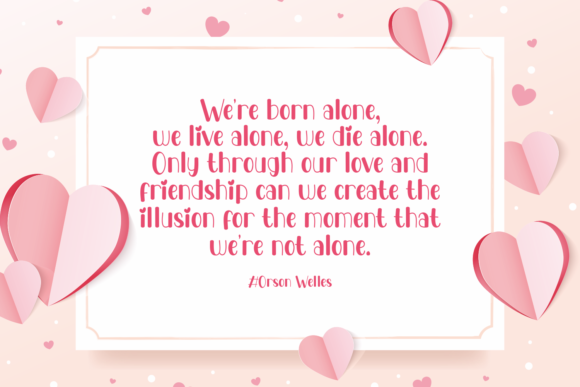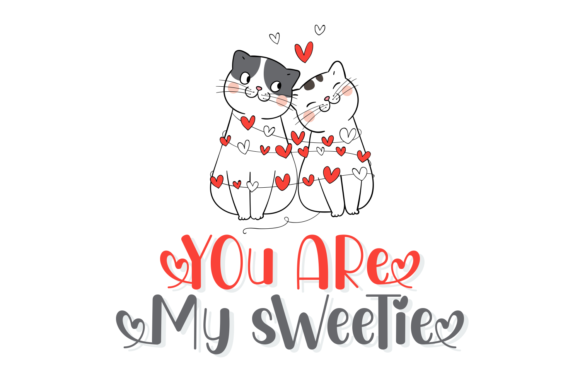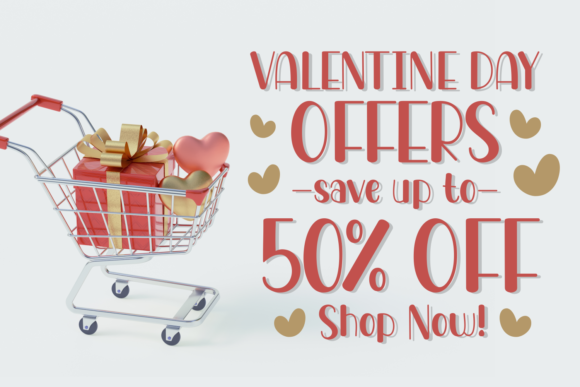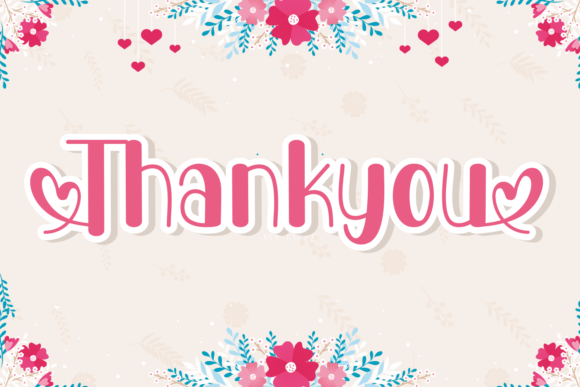
The Perfect Font for Whimsical Designs
Who hasn’t felt the rush of creativity when brainstorming ideas for a new project? The moment when the perfect concept clicks, and everything falls into place? For designers, this moment is often followed by the thrill of selecting the perfect font to bring their vision to life. And, let’s be honest, the right font can make all the difference between a good design and an amazing one.
Enter the enchanting Kafika Font, a delightful display font that adds a playful touch to any design. With its romantic and joyful vibe, Kafika Font is perfect for designers looking to infuse their creations with a sense of whimsy and fun. Whether you’re working on a wedding invitation, a children’s book, or a social media campaign, this font is sure to bring a smile to your face and delight your audience.
Kafika Font Key Features
- Unique Characteristics: The font features a unique blend of modern and traditional elements, making it perfect for projects that require a touch of elegance and sophistication.
Kafika Font Review
I recently had the chance to work with the Kafika Font, and I must say it’s a unique addition to any design project. ✨ One of the things that stands out about this font is its versatility – it’s perfect for both modern and vintage designs. The font’s bold lines and quirky details make it a great choice for titles, headings, and even short blocks of text.
Here are some of the things that I really like about the Kafika Font:
- ✨ Beautifully crafted bold and italic styles that add a lot of character to any design
- ✨ Suitable for a wide range of applications, from print to digital media
- ✨ Highly customizable, allowing you to adjust the font’s appearance to suit your specific needs
However, as with any font, there are some limitations to consider:
- ⚠️ The font may not be the best choice for large blocks of text, as the quirky details can make it difficult to read
- ⚠️ Some users may find the font’s bold lines to be overwhelming or too flashy
Overall, I think the Kafika Font is a great choice for designers looking to add some personality to their projects. With its unique style and versatility, it’s sure to make a statement. However, it’s worth considering the potential limitations before deciding to use it in your next design project.
Common Use Cases for Kafika Font
The Kafika font is versatile and can be used in a variety of design projects, including:
– Creative titles and headings
– Advertising and marketing materials
Tips for Getting the Most out of Kafika Font
Here are some tips for getting the most out of the Kafika font:
– Experiment with different font sizes and styles to create visual interest.
– Pair the Kafika font with other fonts to create a unique and eye-catching design.
– Use the Kafika font in conjunction with graphics and images to add depth and visual interest
Alternatives to Kafika Font for Designers
Oswald
Oswald is a sans-serif font that is great for creating clean and modern designs. It has a geometric feel that works well for headings and titles, making it a versatile choice for various design projects. Compared to Kafika Font, Oswald has a more geometric and angular feel, whereas Kafika Font has a more rounded and elegant appearance.